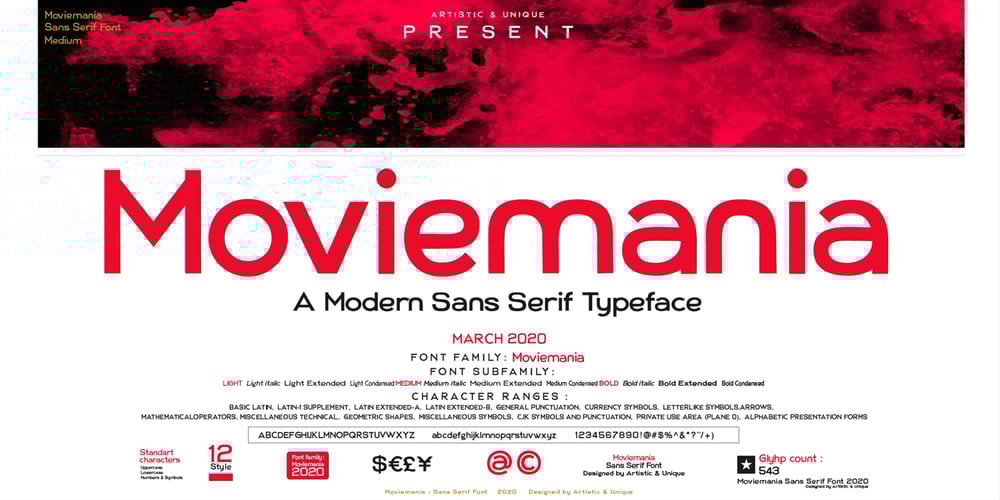
Moviemania Font Family was designed by Osman Taner Kucukgenc and published by Artisticandunique. Moviemania contains 12 styles and family package options. Moviemania – Sans Serif font Family – Multilingual – 12 STYLEMoviemania font family is a modern sans serif typeface with its sharp lines and soft turns that form its characteristic structure. It offers you two alternative concepts in your preferences with its sharp lines in upper cases and soft lines in lower cases.It has an ideal modern structure in your preferences for branding and identity creation in today’s modern world.Absolutely perfect for movie titles, magazines, branding, branding identity, posters, logo designs, packaging designs, websites – all digital platforms and more!This font can meet your needs in all modern and classic creative projects.CHARACTER RANGES : Basic Latin, Latin-1 Supplement, Latin Extended-A, Latin Extended-B, General Punctuation, Currency Symbols, Letter like Symbols,Arrows, Mathematical Operators, Miscellaneous Technical, Geometric Shapes, Miscellaneous Symbols, CJK Symbols And Punctuation, Private Use Area (plane 0), Alphabetic Presentation Forms GLYPH COUNT : (543) Uppercase typeface Lowercase typeface Numbers Symbols Multilingual With this font you can create your unique designs.If you have a question, please contact me.Have a good time.